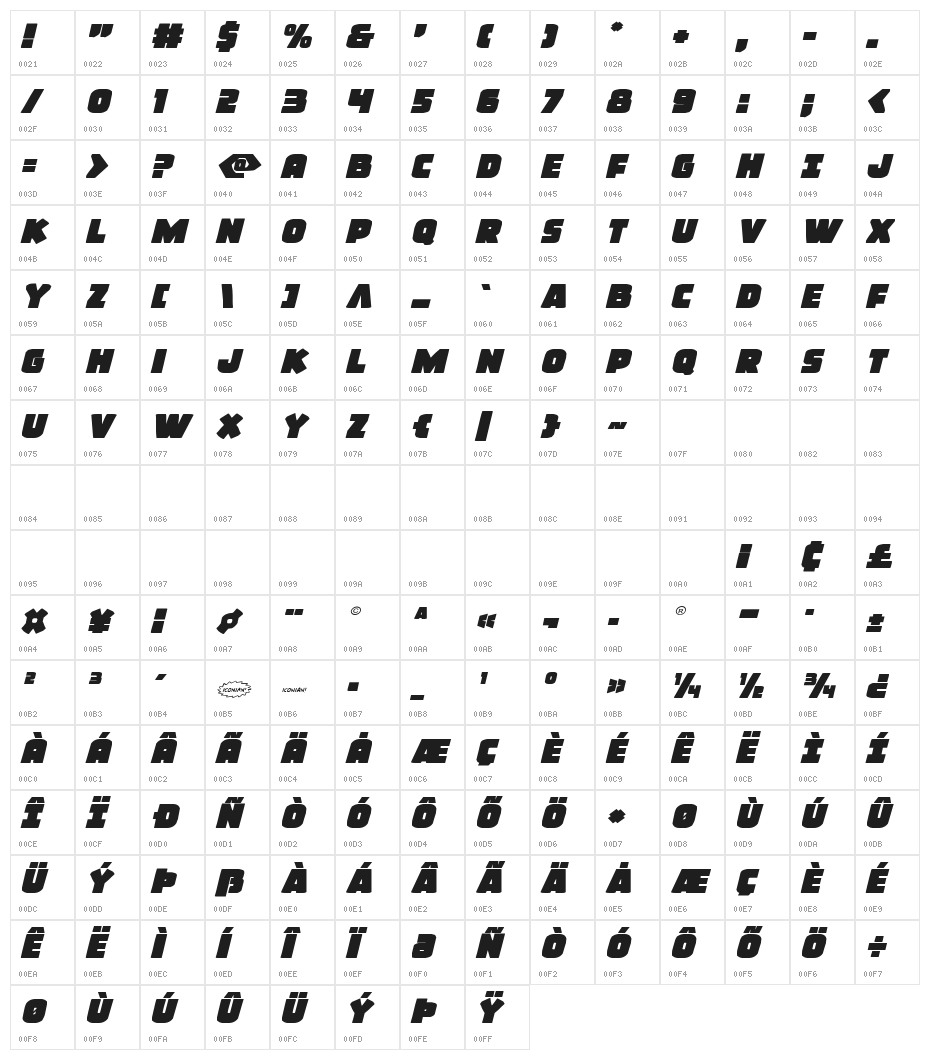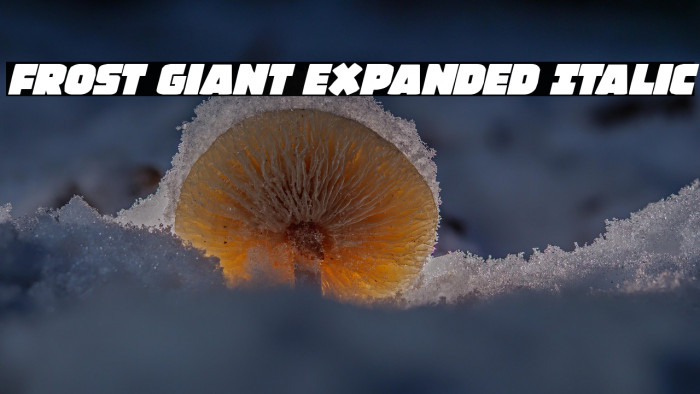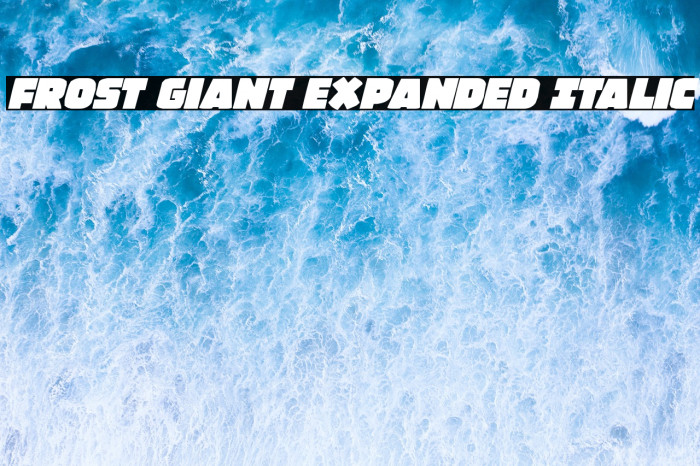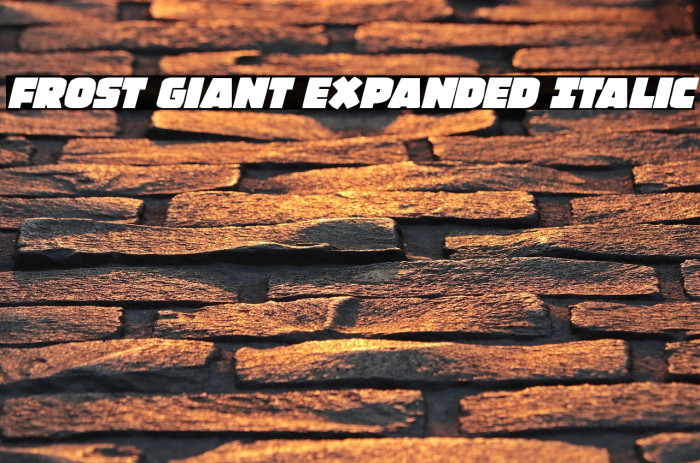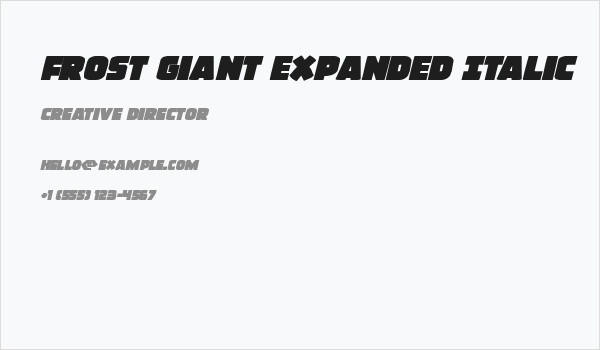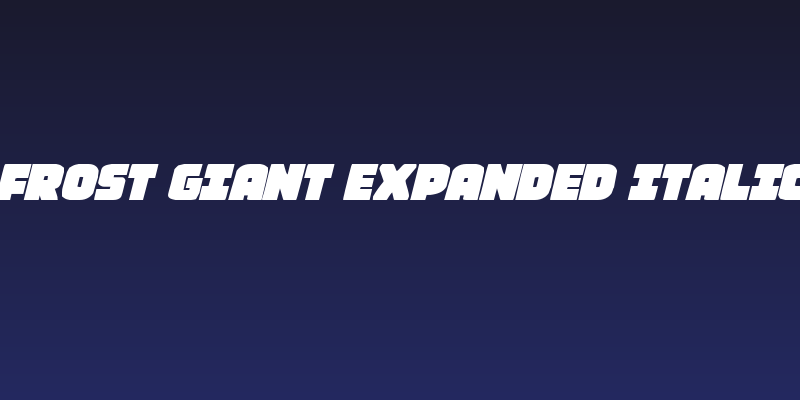
Frost Giant Expanded Italic Font
Frost Giant Expanded Italic Description
This font features a bold and dynamic style with an expanded and italicized form. The characters are robust and heavily weighted, giving a strong visual impact. Each letter is designed with a wide stance, enhancing its presence and readability. The italic slant adds a sense of motion and energy, making it suitable for attention-grabbing designs. The font maintains a consistent thickness throughout, ensuring uniformity and balance. Its geometric shapes and sharp edges contribute to a modern and assertive appearance, ideal for making bold statements.
| Proposed Projects | Ideal for headlines, posters, branding, and any project requiring a strong visual impact. |